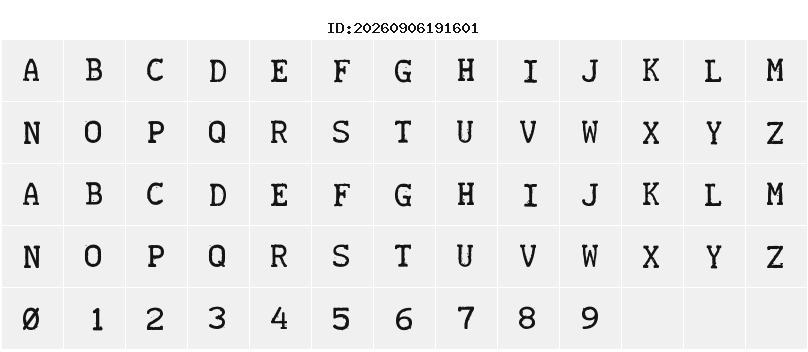
• Font Name: TELETYPE 1945-1985
• Designer: E. V. Norat II
• Manufacturer: E. V. Norat II
• Description: FONT NAME: TELETYPE 1945-1985 Copyright (c) 2008 by “E. V.” Norat II. All rights reserved. Permission to use this font is only granted for non-commerical; non-profit; private and/or personal purposes. Commercial use of this font is prohibited. This typewriter-based, serif, mono-spaced font is similar, but not exactly, to the actual Teletype typeboxes, that where used initially by the Civil Aviation Agency (CAA), subsequently reorganized as the Federal Aviation Administration(FAA), in the various electro-mechanical Teletype (TTY / TWX) machines. These teletypes were used by Air Traffic Controllers at over 360+ Flight Service Stations facilities, the U.S. Weather Bureau/Stations, international weather stations, military and many other facilities throughout the world for communications and weather reporting/transmission purposes. The main unique differences from the standard teletype is that the CAA/FAA typeboxes included eight (8) wind direction arrows and four (4) cloud cover symbols. In addition, several letters were slightly “bowed” outward at the sides from standard teletype typeface(s). No lower case letters were used; instead the typeboxes were shifted between LTRS (Letters) and FIGS (Figures).The teletype, such as the ASR-28 model used a 5 level Baudot coded paper tape, a nylon-cloth ribbon, ran at a 110 baud rate, or about 60 words per minute and the typeboxes only had 64 characters available (including CR, LR, SP, BEL, NUL, etc.). Around 1985, due to the computer automation upgrades using the new standard ASCII coding, all weather symbols were removed and replaced with text-based descriptors. In addition, the consolidation of 360+ Flight Service Stations to the new 64 Automated Flight Service Stations (AFSS) in the mid to late 1980’s, made the slow teletype system(s) obsolete and was removed. About 2005, all the FAA Flight Service Station facilities/personnel were sold (?) by the U.S. Government to Lockheed-Martin Corporation and are expected to be further consolidated to less than a handful nationwide. This font, TELETYPE 1945-1985, was made to appear as actual characters exactly as it was printed on teletype machines. It accurately recreates a typeface as though it was printed through a nylon cloth inked ribbon and slightly askew. SYMBOL DATA Key Purpose / Meaning ! North Wind @ Northeast Wind # East Wind $ Southeast Wind % South Wind ^ Southwest Wind & West Wind * Northwest Wind (Note: Arrows were combined, so a North Northeast wind would be shown as: !@ ) ~ Sky Clear (less than 1/10 cloud cover ( Scattered clouds (between 1/10 to less than ½ cloud cover) ) Broken clouds (between ½ to 9/10’s cloud cover) _ Overcast clouds (more than 9/10’s cloud cover)